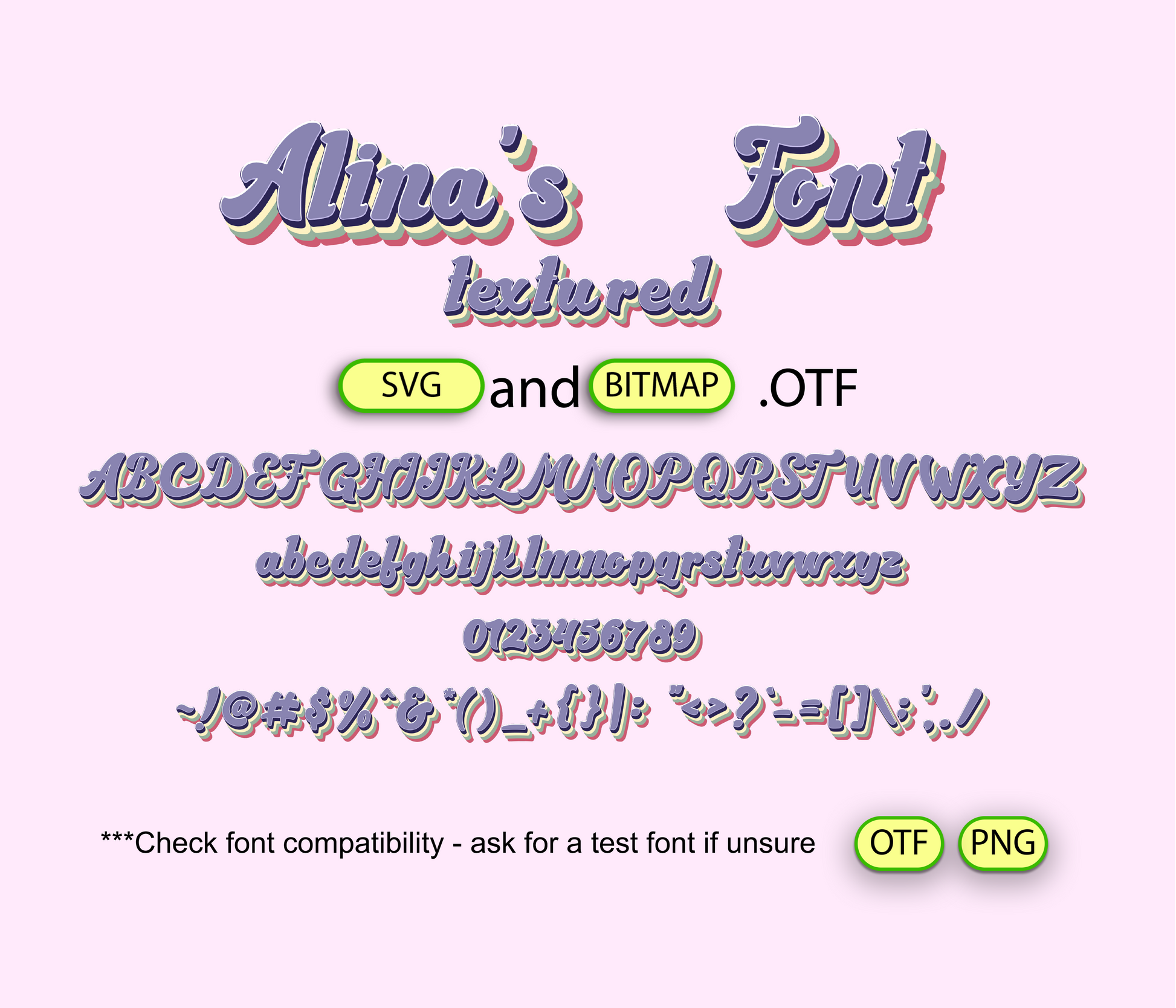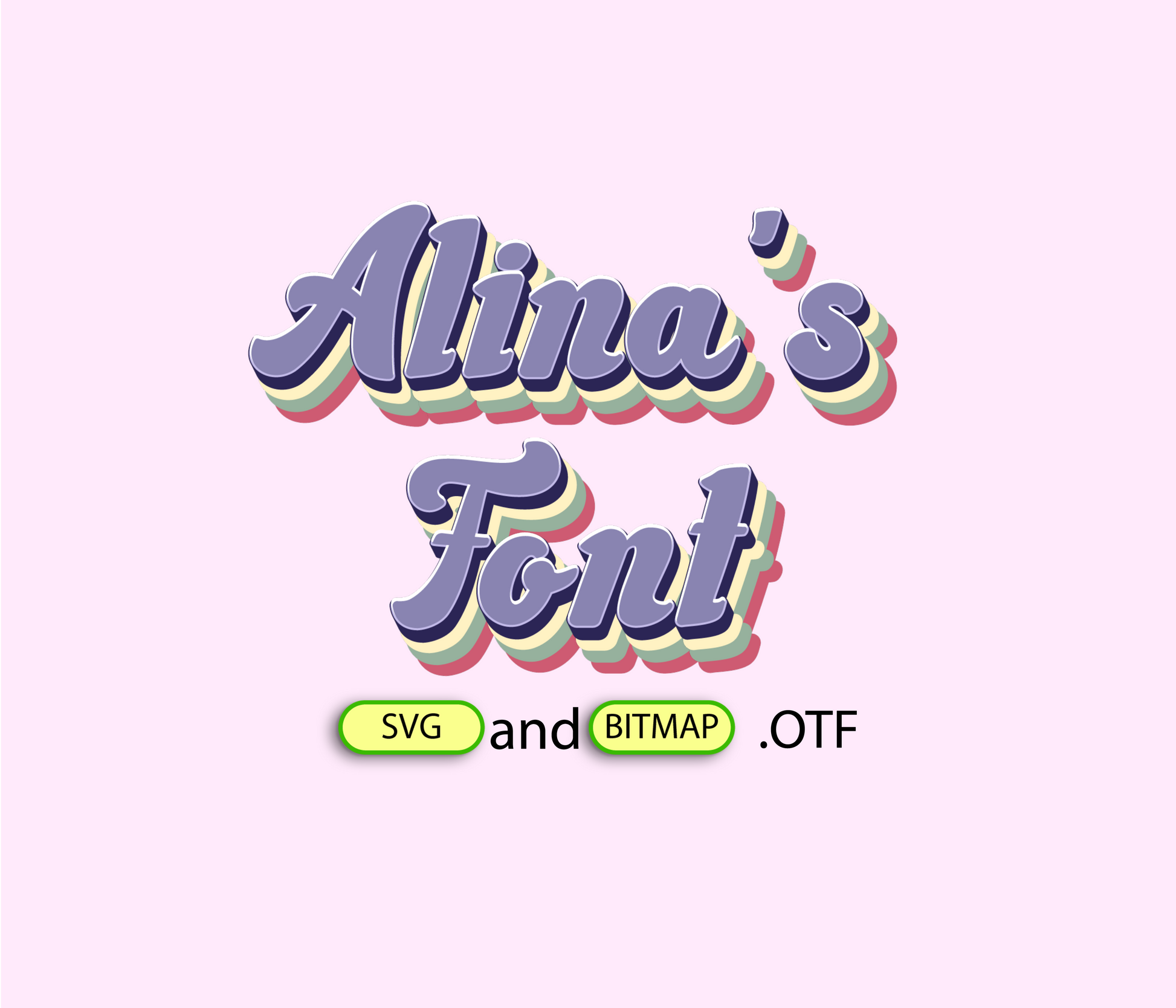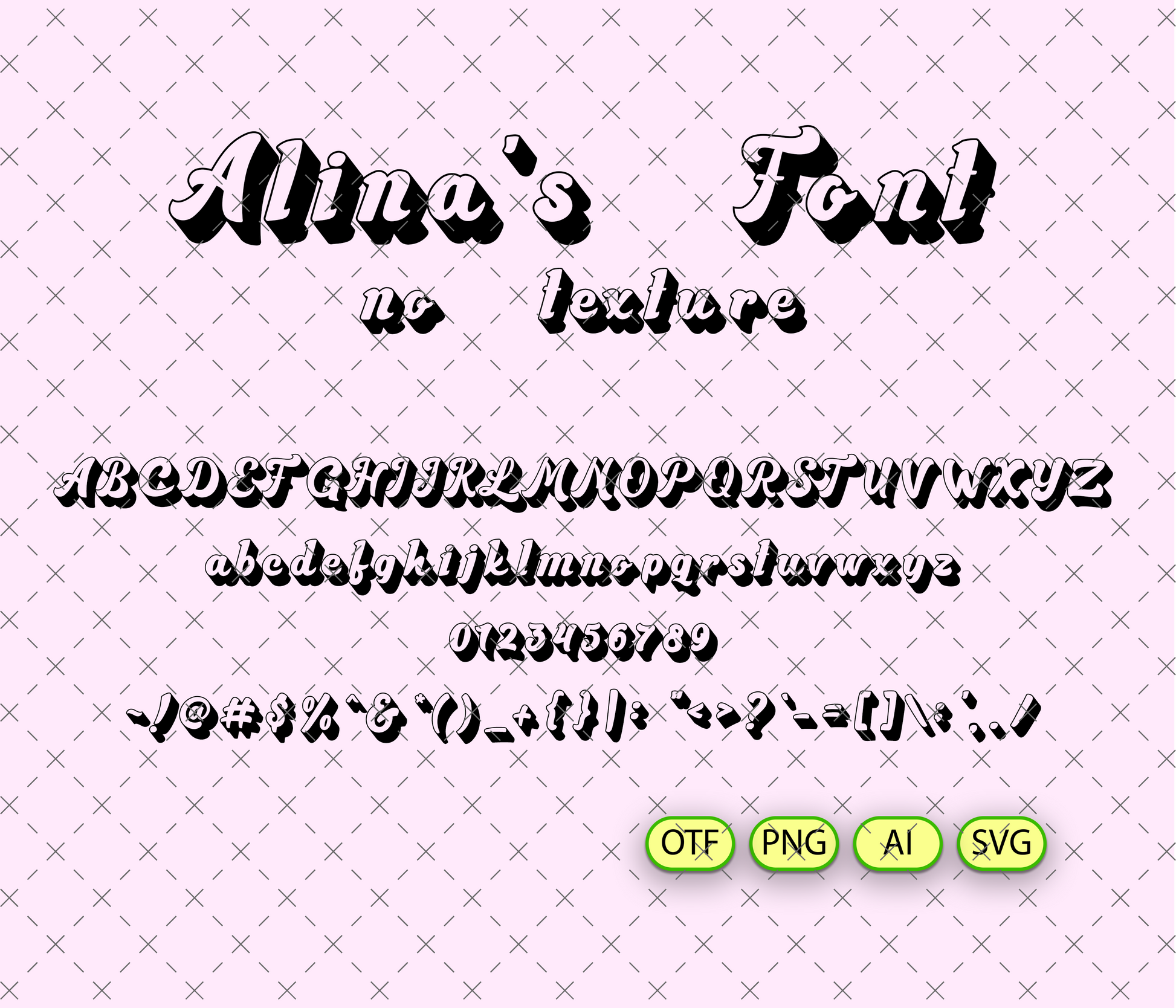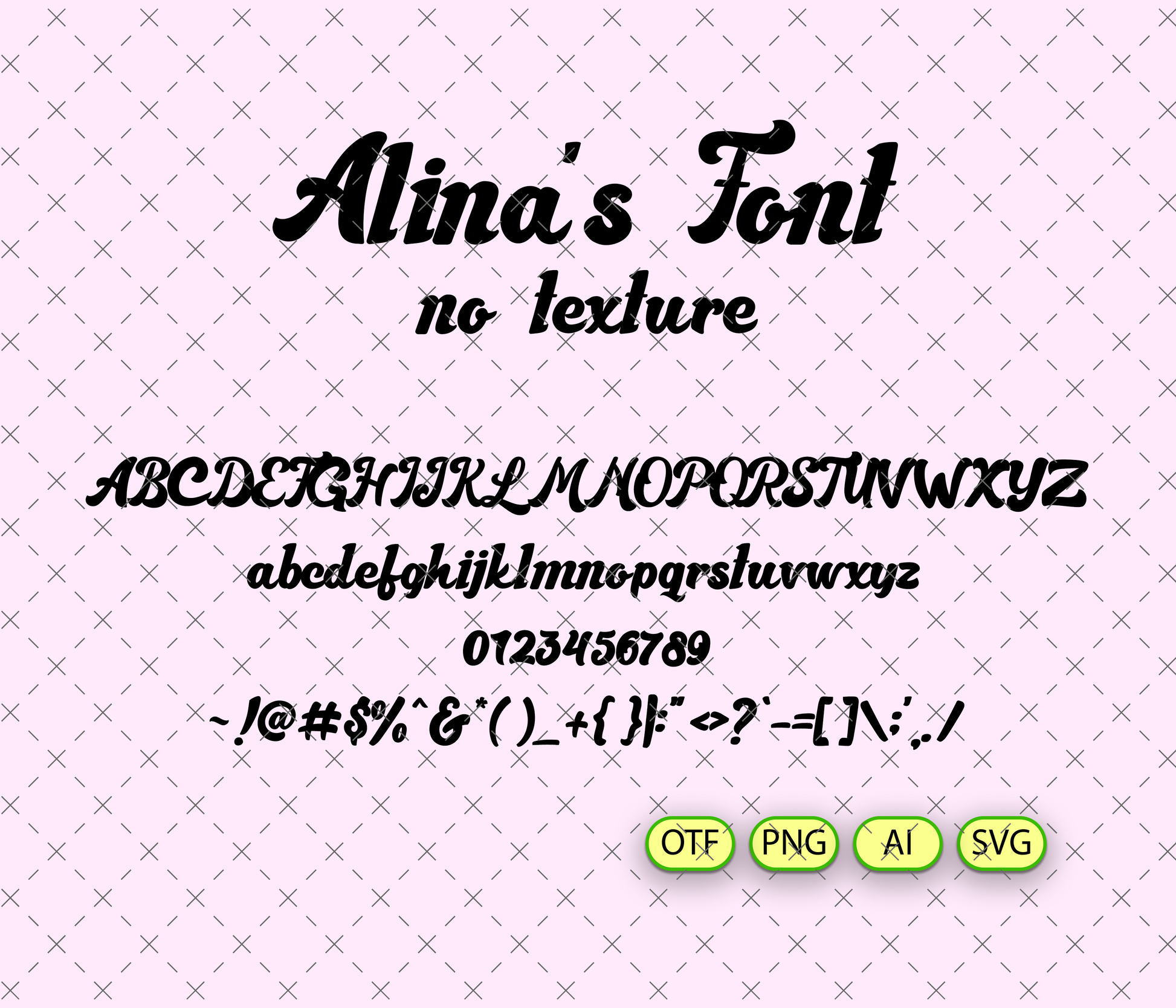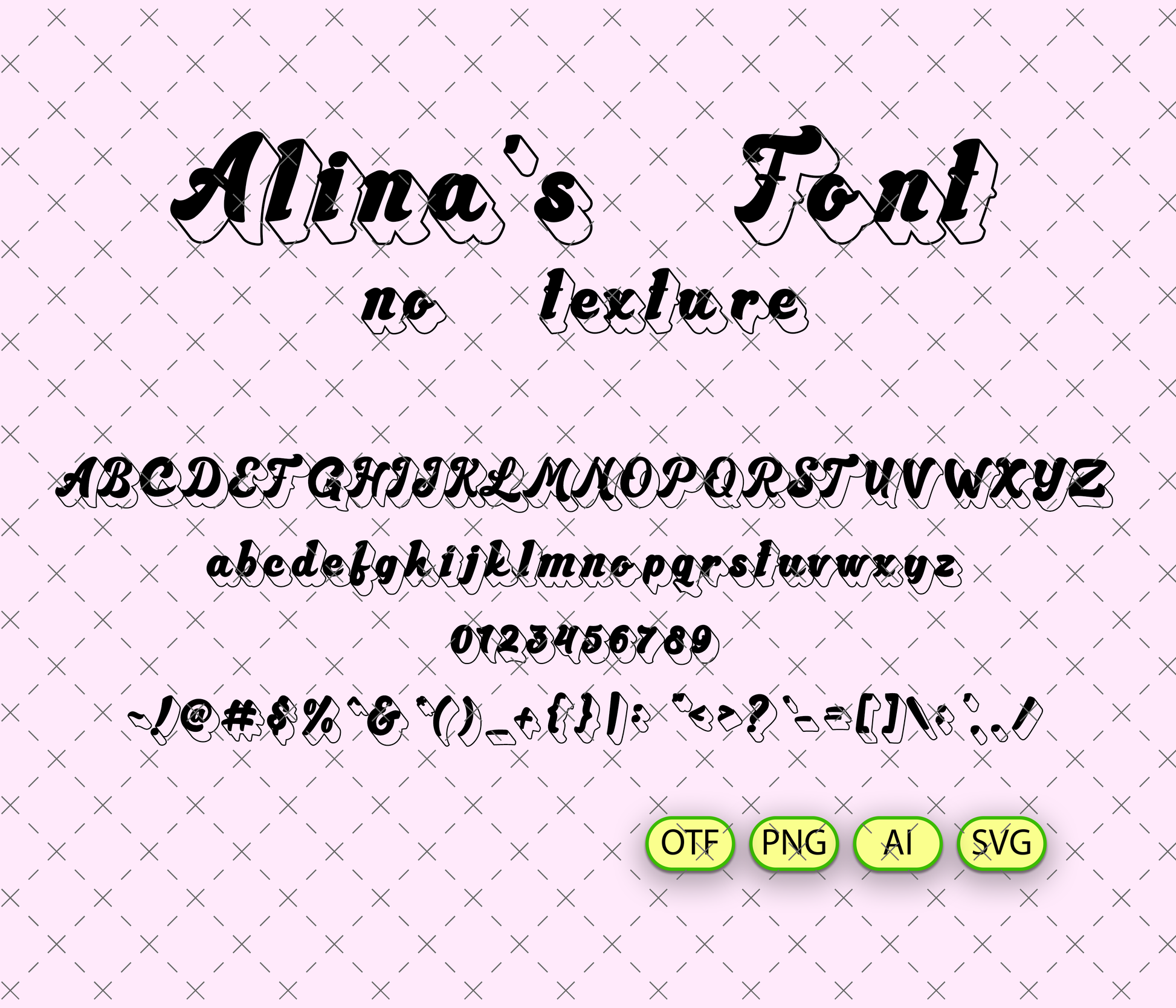
Turntable Groove Font Textured
Step into the crackling warmth of spinning platter culture and soulful seventies record store discovery with our Turntable Groove Font Textured, capturing the essence of needle-drop anticipation and legendary vinyl groove chamber narratives. Perfect for music culture enthusiasts, record collector communities, soul era media producers, and vintage sound design specialists, this font brings the rich, rhythmic character of iconic seventies turntable storytelling to your projects. Create head-nodding invitations, commercial goods, or web content with the warm crackling presence of spinning platter culture narratives.
Rhythmic Typography for Vinyl Culture Design & Seventies Record Store Projects
Our Turntable Groove Font Textured features rich, rhythmically shaped letterforms with warm crackling vinyl textures reflecting the world of legendary needle-drop anticipation and iconic seventies record store wonder.
- Event Promotions: Craft head-nodding invitations, posters, and banners for vinyl-themed celebrations, record store culture gatherings, and groove era events that radiate the warm crackling spirit of legendary seventies turntable entertainment
- Merchandise Design: Perfect for apparel, wall prints, adhesive graphics, and collectibles that showcase the rich aesthetic of spinning platter and seventies record store culture themes
- Digital Media: Warm up websites, content channels, and social platforms with rhythmic header designs and imagery that express the soulful wonder of legendary seventies turntable groove eras
- Creative Content: Add signature needle-drop flair to music illustrations, vinyl artwork, and imaginative projects inspired by beloved seventies spinning platter record store chronicles
- Personal Projects: Stir warm crackling groove into memory albums, handcrafted items, and living space decorations inspired by the world of legendary seventies turntable and record store characters
Many seek an online font generator to mimic the look of the Turntable Groove Font. Steer clear! No generator can match the rhythmic quality of our font, which comes in a clean outline version perfect for cutting machines.
Our font pays tribute to the world of spinning platter wonder and generation-spanning seventies vinyl groove culture, empowering your projects with its rich and rhythmically soulful character. Whether crafting music-themed materials, designing vinyl culture products, or adding a seventies turntable touch to personal projects, this font communicates the warm essence of needle-drop groove magic. Ready to spin soulful seventies wonder into your creations? This font is your key to attention-grabbing, impactful design.